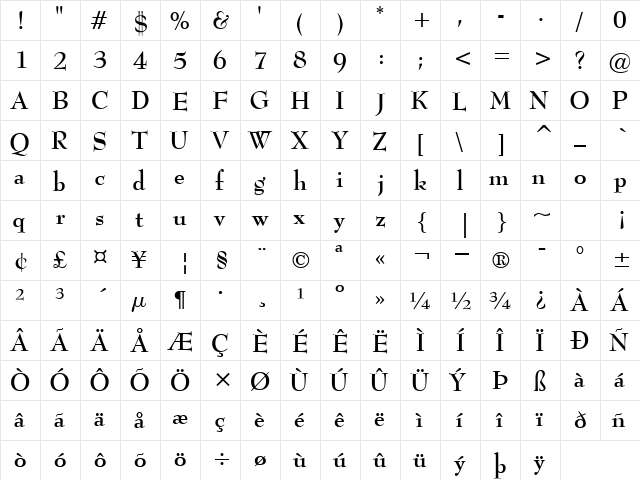
MonitorSSK Bold Font Preview
MonitorSSK Bold
Design Context for MonitorSSK Typeface
MonitorSSK is a composed and adaptable typeface that performs quietly and consistently across a wide range of design contexts. Its bold stroke weight gives it real presence on the page.